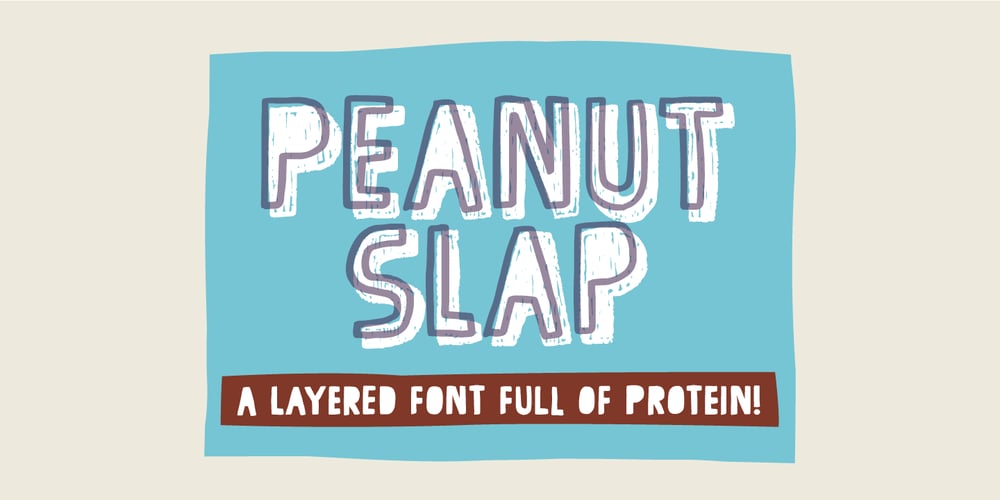
Peanut Slap Font Family was designed by Jakob Fischer and published by PizzaDude.dk. Peanut Slap contains 3 styles and family package options. I love peanuts! Actually I eat peanuts every day, in the shape of Peanut Butter … and it kind of slaps me in the face with energy and good taste! What a good way to start the day! The same thing could fit to this font: a good way to start your day is with a good design … using my Peanut Slap font: Mix the 3 versions with your favourite colorscheme, play around with the transparency…and voila! Great results awaits you!